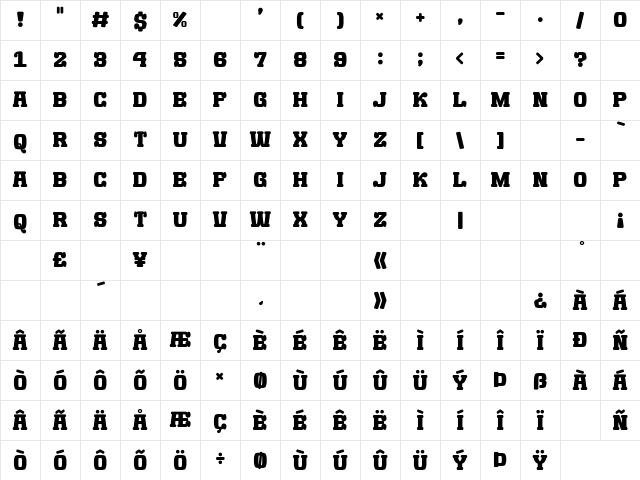
Salted Peanuts Regular Free Font
Salted Peanuts Regular
Complete Salted Peanuts Regular glyph index. Displaying only characters natively supported by Salted Peanuts Regular font.
Design Context for Salted Peanuts
Salted Peanuts is a composed and adaptable typeface that performs quietly and consistently across a wide range of design contexts.